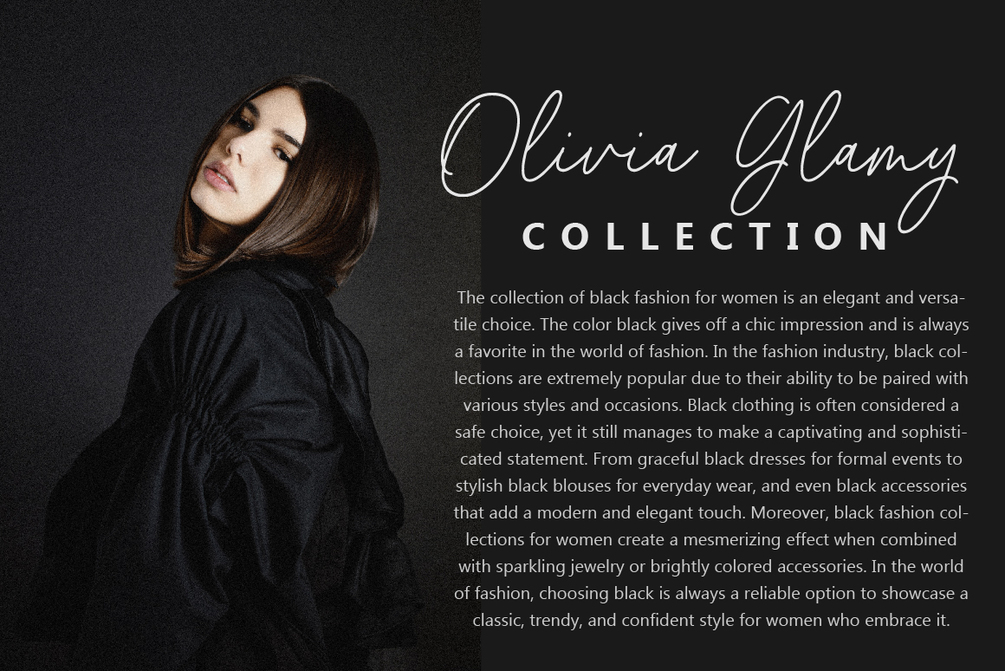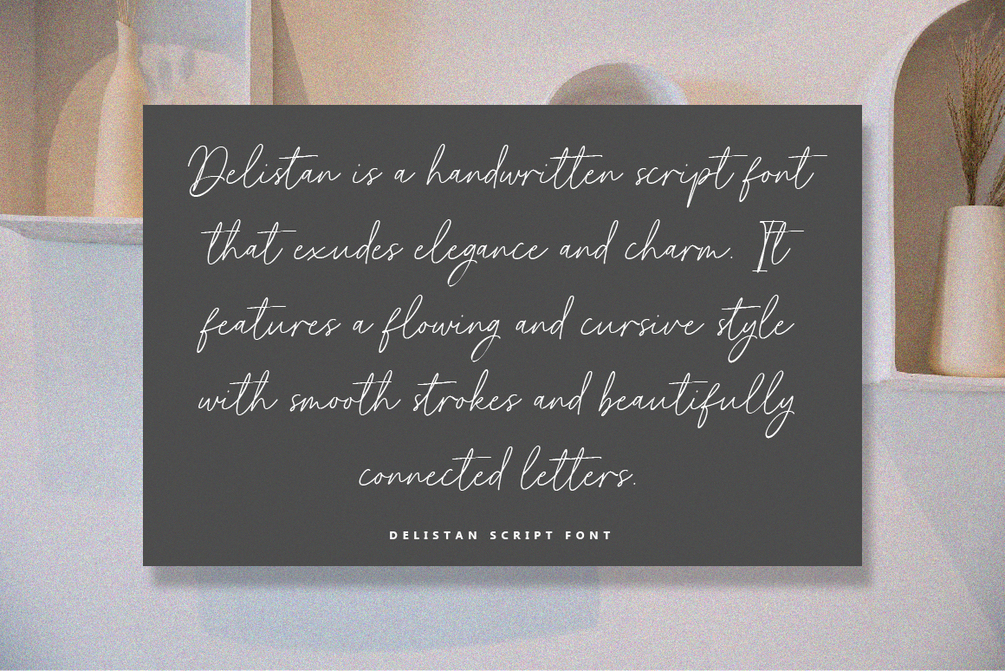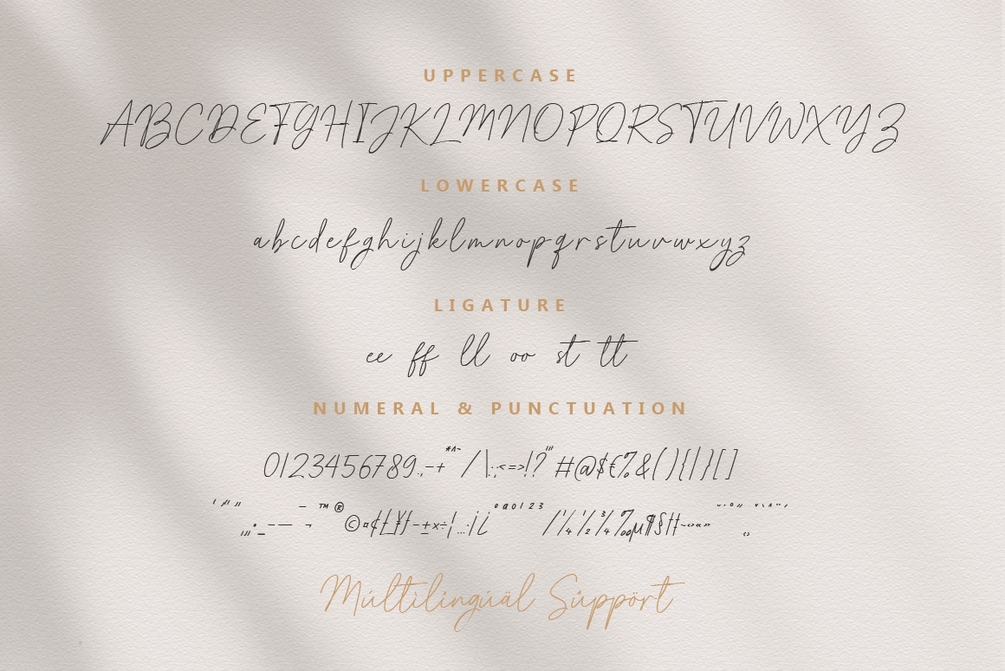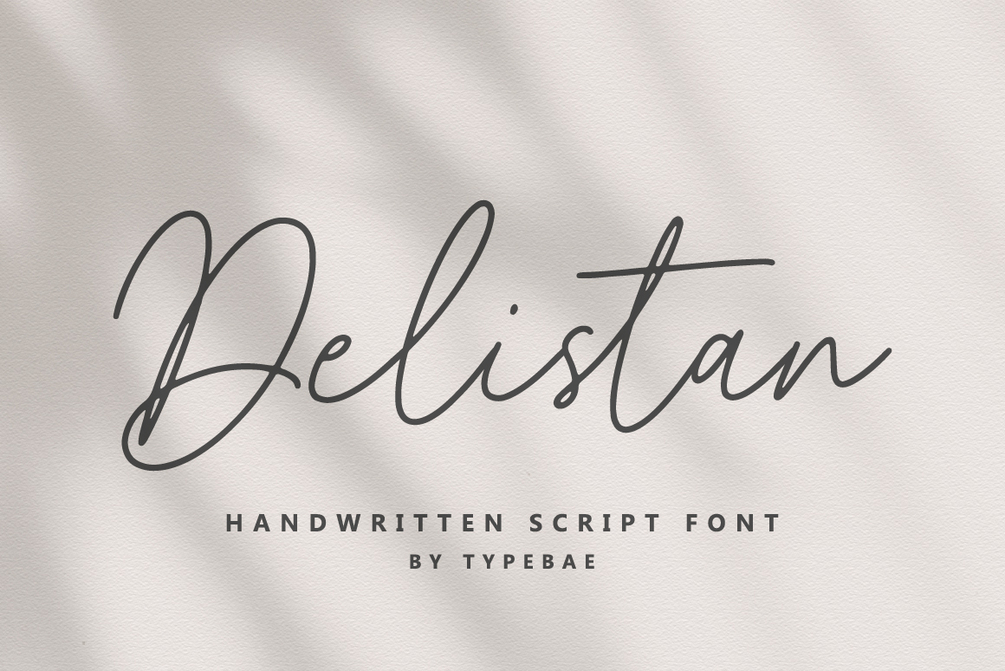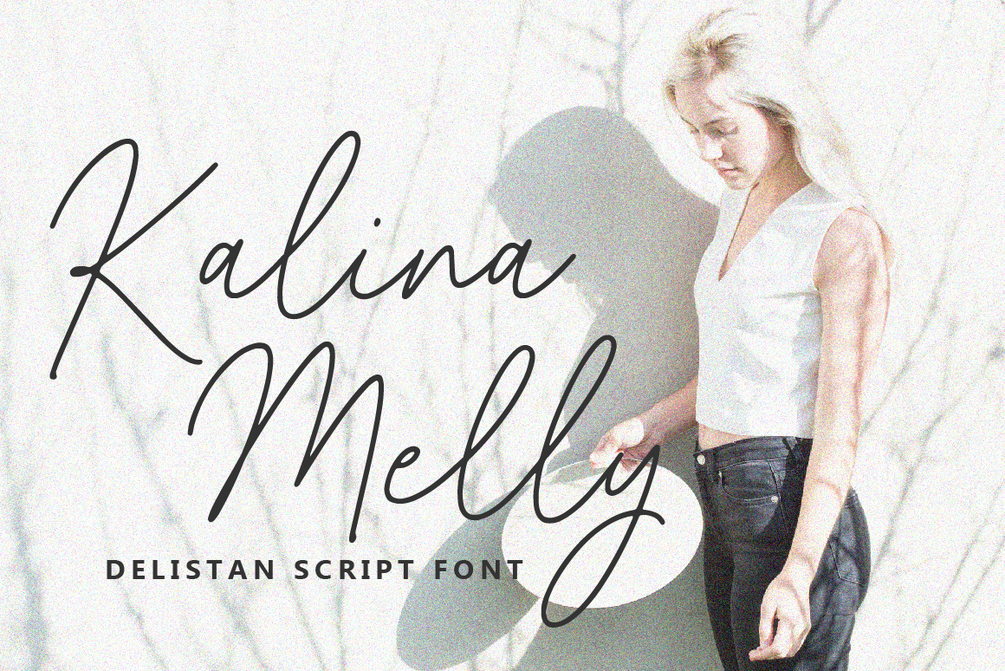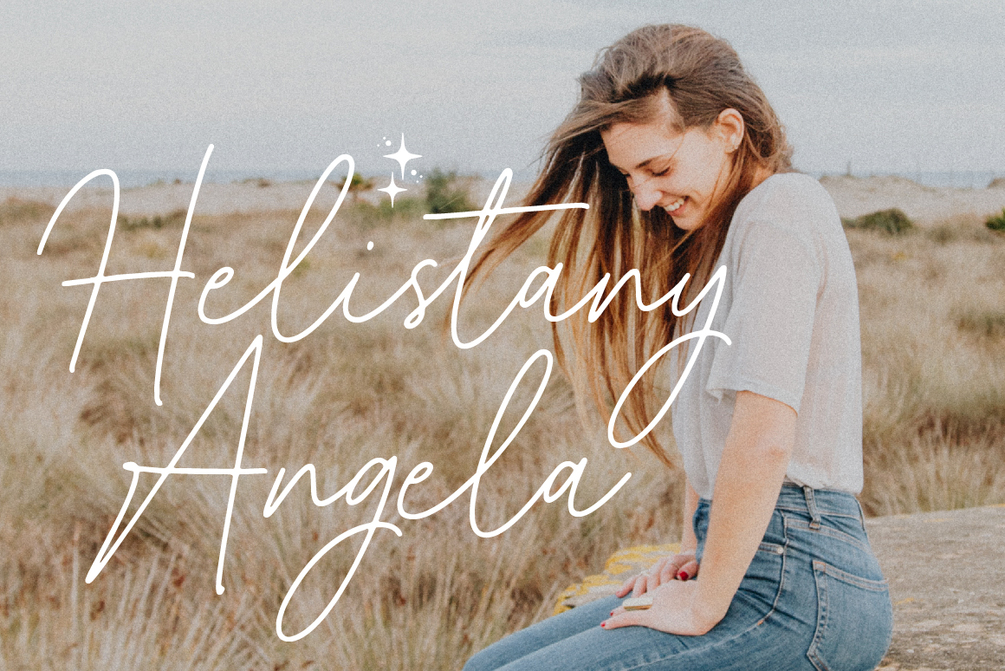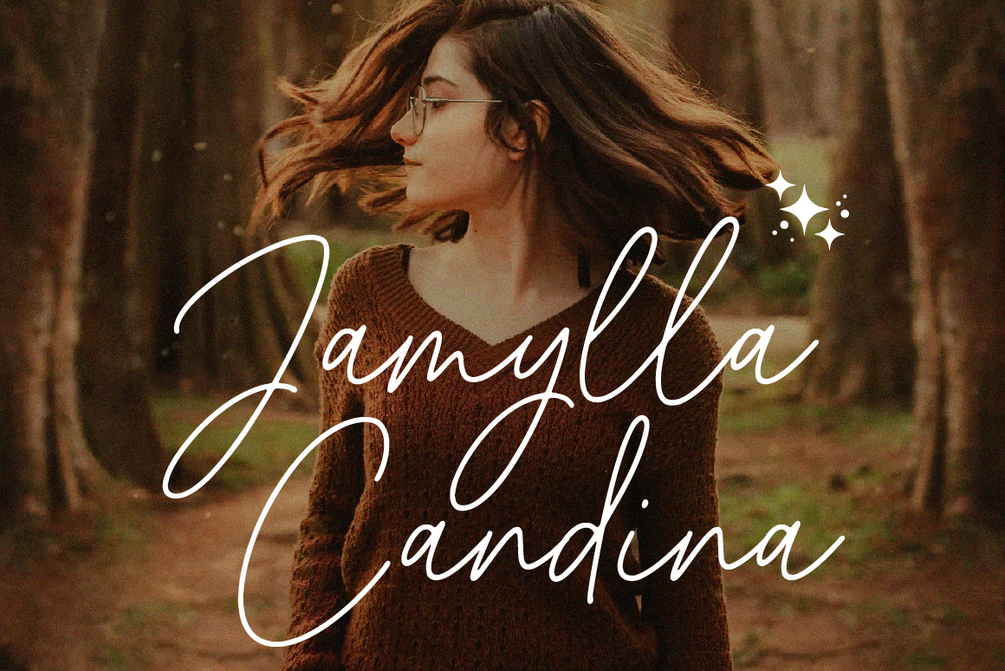
Delistan
Delistan is a handwritten script font that exudes elegance and charm. It features a flowing and cursive style with smooth strokes and beautifully connected letters. The font has a sophisticated yet playful vibe, making it suitable for various creative projects such as invitations, logos, branding, and other design elements.
• Full alphabet and punctuation
• Ligature feature
• Multilingual Support